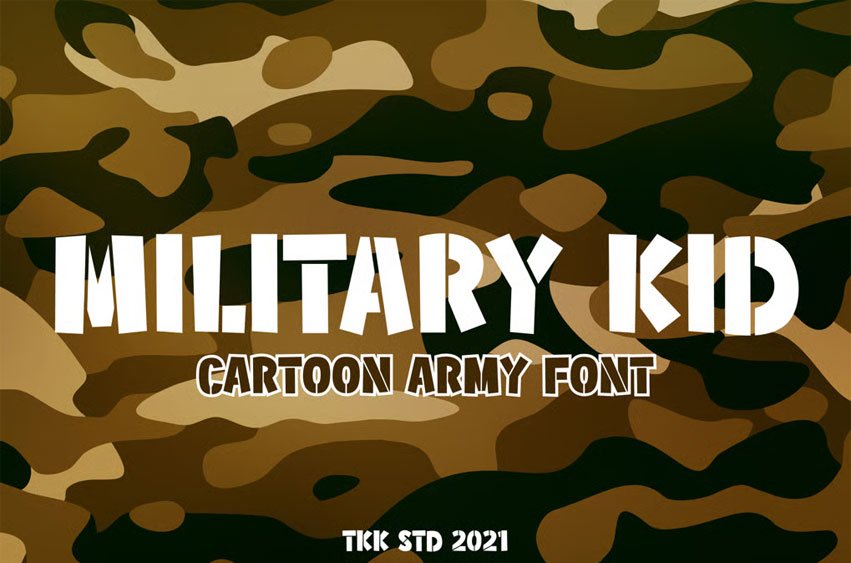
Military Kid Font is a cartoon-style stencil display font designed to bring playful strength and youthful energy to any design. Featuring geometric block shapes, stencil-inspired gaps, and a touch of cartoon ruggedness, this font balances the tough look of military type with friendly proportions perfect for kid-centered visuals.
Its bold presence and structured layout are ideal for game UIs, school posters, toy branding, or adventure-themed book covers. The characters are clean but fun—emphasizing structure, readability, and action-ready charm.
From paintball parties and school projects to kids’ gaming interfaces and military-themed YouTube thumbnails, Military Kid speaks the language of fun missions and bold adventure. Designers creating content for young learners, gaming brands, and merchandise will love how this font bridges toughness with approachability—delivering structure without losing playful flair.
Whether you’re building a jungle mission interface or designing an “Army Rex” title card, Military Kid fits seamlessly with your storytelling goals.
- Built Tough for Bold Communication
- Blocky stencil forms with softened angles for legibility and charm
- Clear uppercase & lowercase designs ideal for hierarchy and headings
- Kid-Ready Appeal
- Strong military theme softened by cartoonish friendliness
- Great for boys’ birthday themes, paintball ads, and playful banners
- Versatile for All Ages
- Suitable for educational resources, YouTube intros, packaging, or even STEM branding
- Works especially well in gaming environments and printable craft content